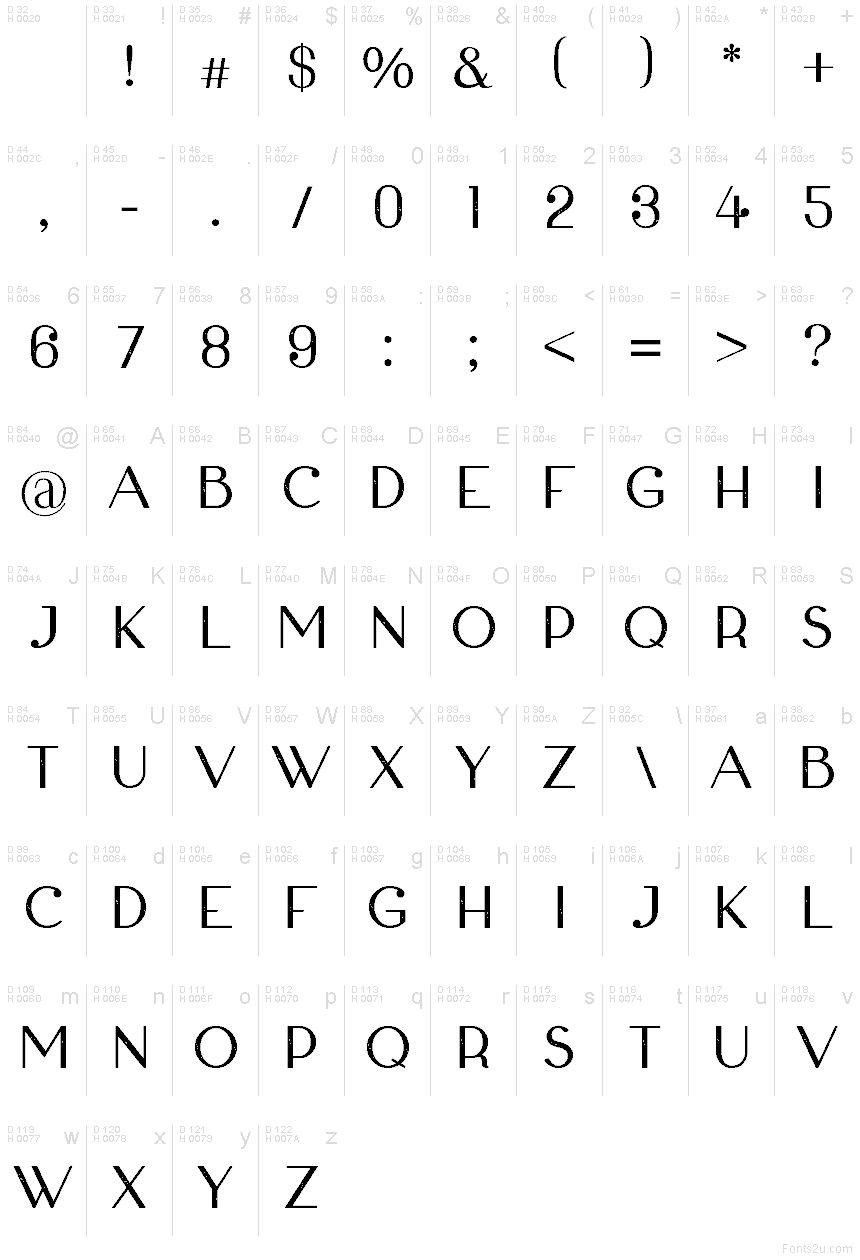
KANWODE
Kanwode font by UI Creative is a free eroded sans serif display typeface. Its letters are sharp and geometric, then scratched through with a dusted, weather-beaten texture that feels like ink worn down on concrete. The narrow spacing and tall forms give Kanwode a sleek, fashion-forward attitude, while the distressed finish keeps it gritty and grounded rather than glossy.
Using Kanwode, you get a streetwise elegance that stands out on posters, album covers, streetwear branding, edgy book jackets, film titles, and bold packaging. This free font thrives at large sizes where the speckled erosion can really breathe. Pair it with a clean, neutral sans in smaller text to let Kanwode handle the drama in your headline.